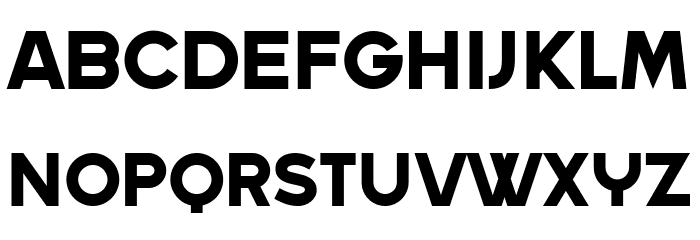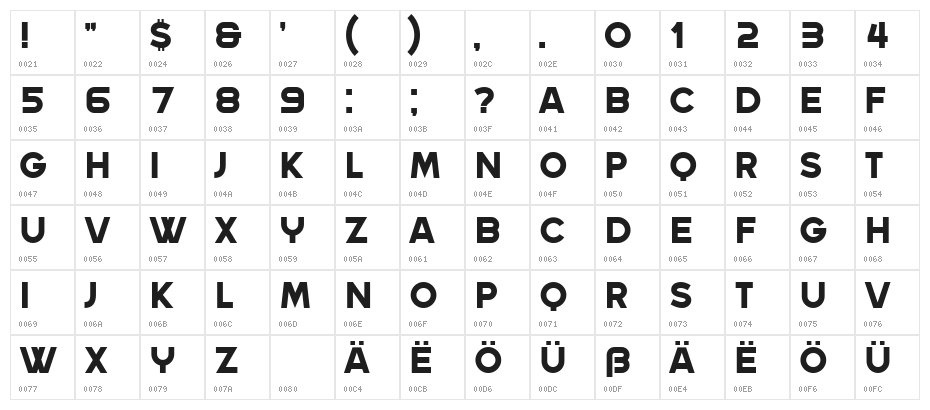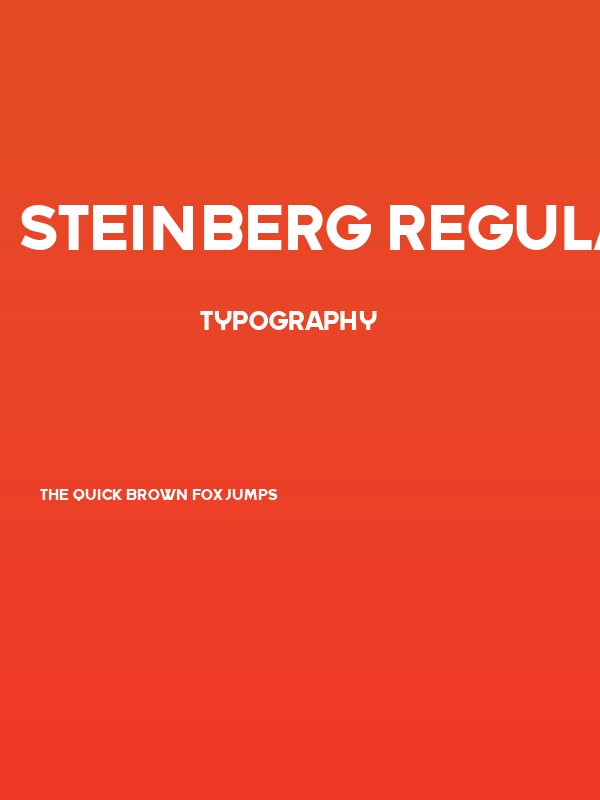
Steinberg Regular Font
This font features a bold and modern design with a strong geometric structure. The characters are crafted with uniform stroke widths, giving it a clean and robust appearance. The uppercase letters are particularly striking, with a consistent height and width that contribute to a balanced look. The numerals are equally bold, ensuring readability and impact. Special characters are designed to match the overall aesthetic, maintaining the font's cohesive style. This typeface is ideal for making a statement, with its clear lines and contemporary feel.
A bold, geometric font with a modern and clean design.
- Proposed Projects: Ideal for branding, headlines, posters, and any project requiring a strong visual impact.